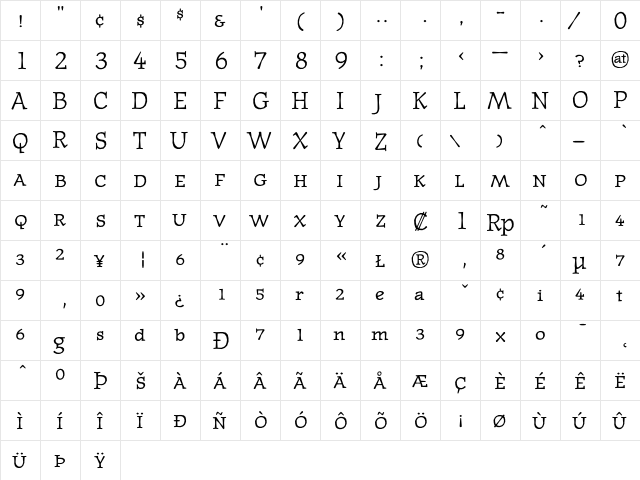
JournalTextSmallcaps Regular
Design Context for JournalTextSmallcaps Typeface
JournalTextSmallcaps offers clean, dependable letterforms without strong stylistic allegiance, making it a practical choice for designers who need flexibility.